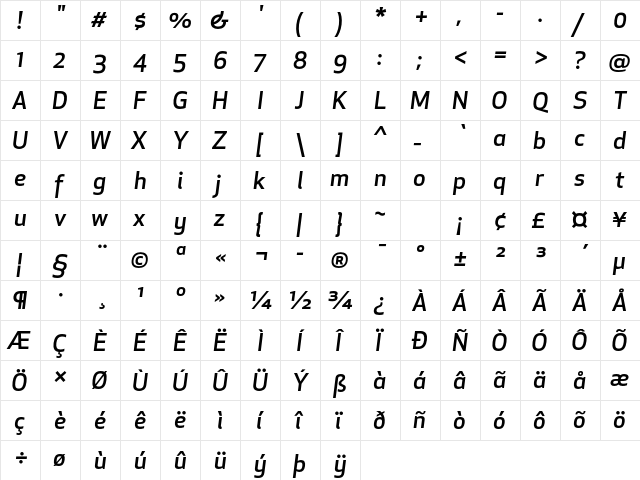
Apex New Medium Italic
| Foundry | Village Type & Design LLC (Thirstype) |
| Designer | chester (orignally designed with Rick Valicenti) |
| Version | Version 1.001 2006, Revised version replacing Apex Sans |
Design Context for Apex New Typeface
Apex New is a composed and adaptable typeface that performs quietly and consistently across a wide range of design contexts. The dynamic lean of this cut emphasises speed and emphasis in any layout.
Pro Tip: Try Apex New for annotation and caption copy alongside an upright companion — the contrast in angle creates a dynamic but ordered typographic system.